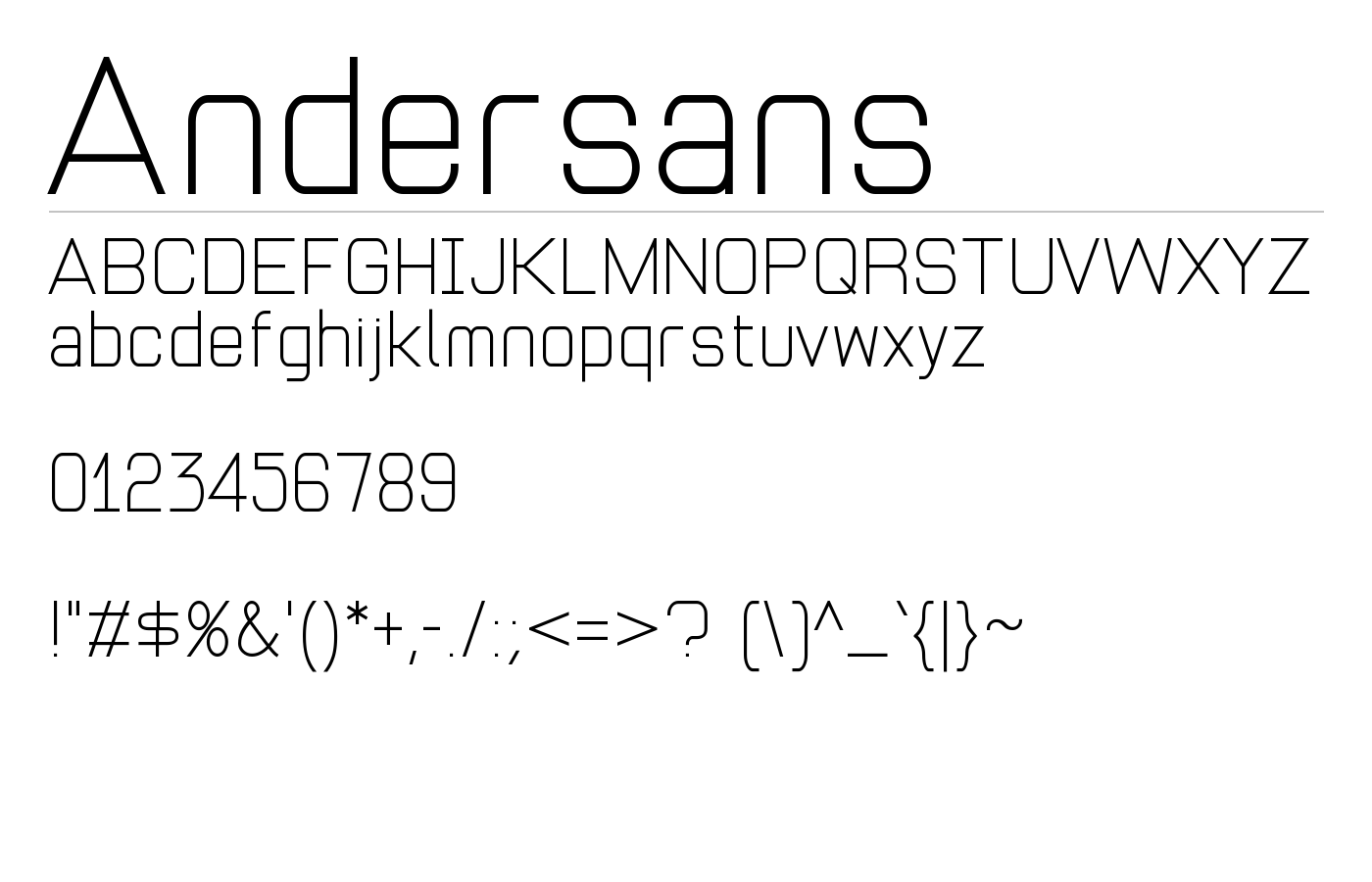
Andersans is a sleek, modern sans serif font characterized by its thin, geometric letterforms and a slightly condensed width that gives it a clean, technical feel. Its consistent stroke weight, squared terminals, and single-story letters create an elegant yet futuristic style, making it ideal for tech branding, editorial headlines, and minimalist design projects. The font’s airy spacing and refined simplicity ensure excellent readability while conveying a contemporary, innovative vibe.
Andersans Font
About Andersans Font